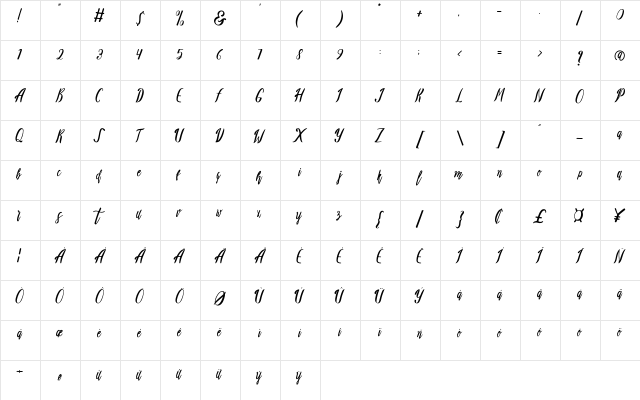
Callera Regular Font Preview
Callera Regular
Callera Regular Font Details
| Foundry | Angg Mahardika |
| Designer | Angga Mahardika |
Design Context for Callera Typeface
Callera is a composed and adaptable typeface that performs quietly and consistently across a wide range of design contexts.